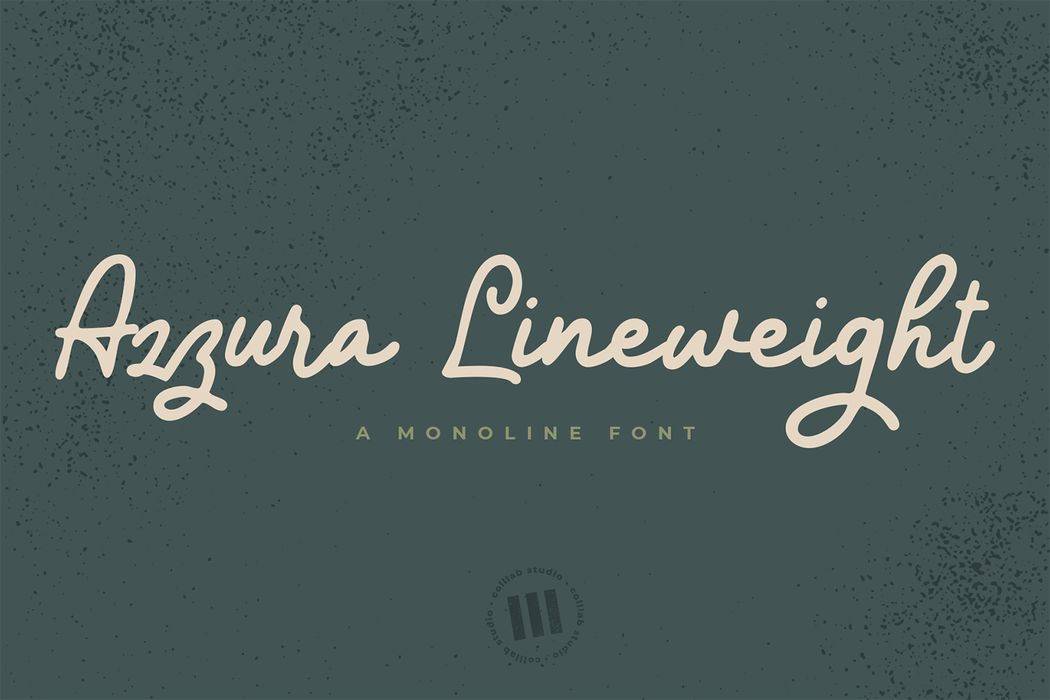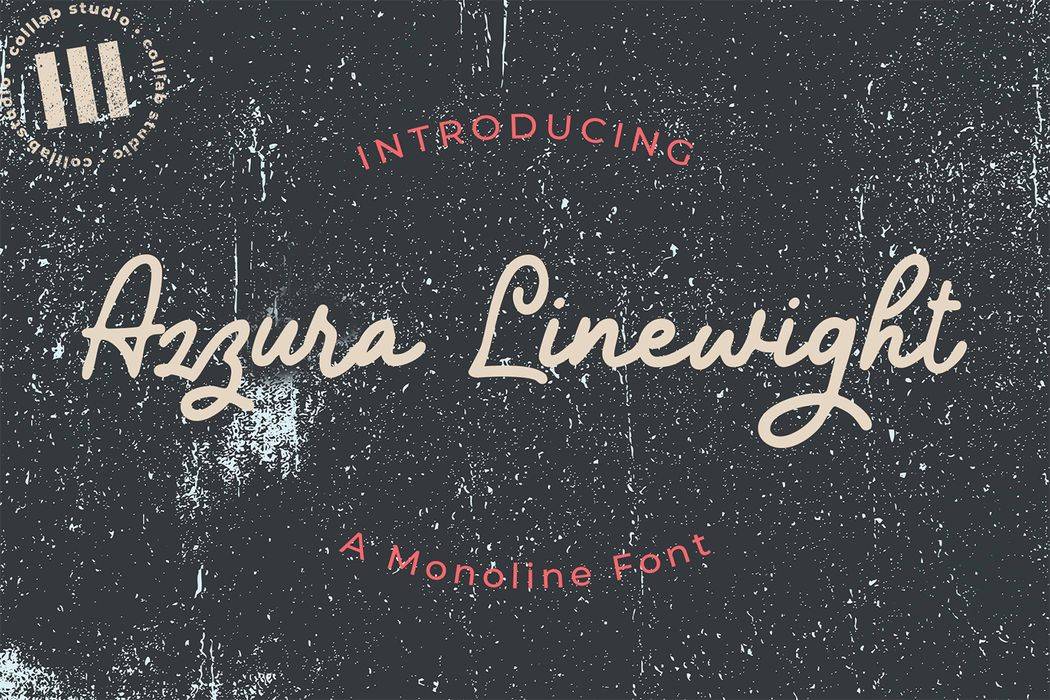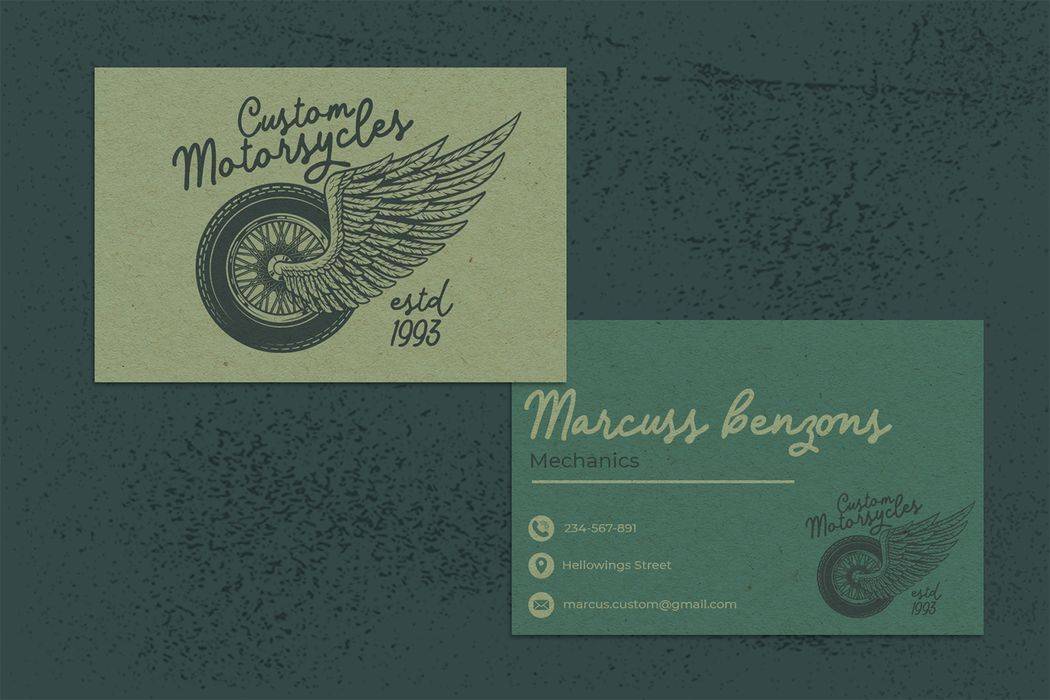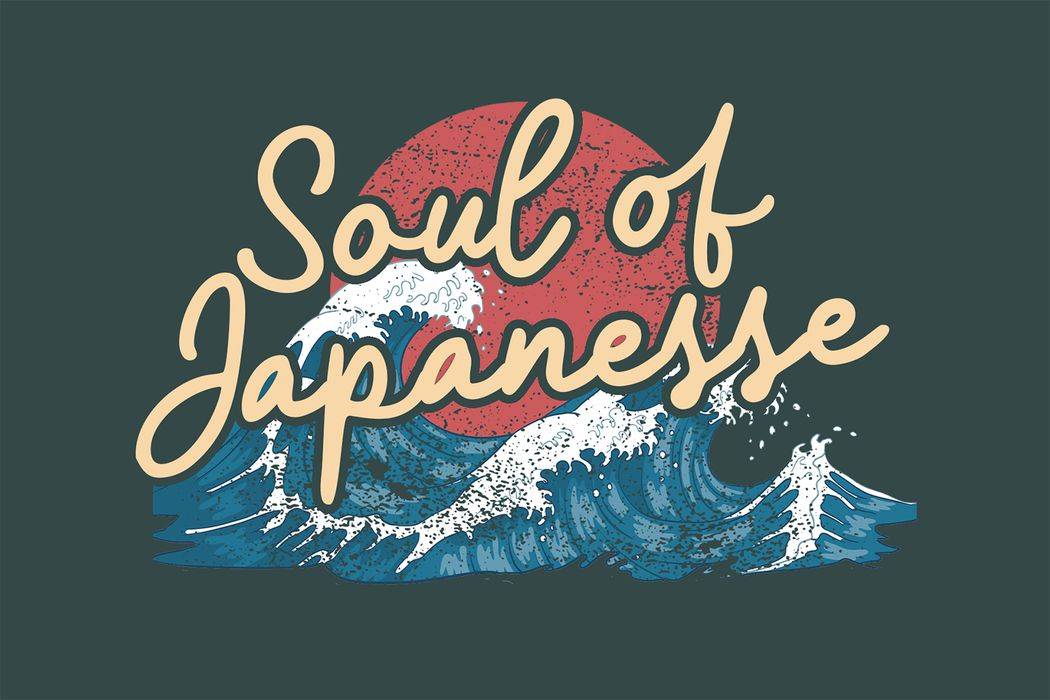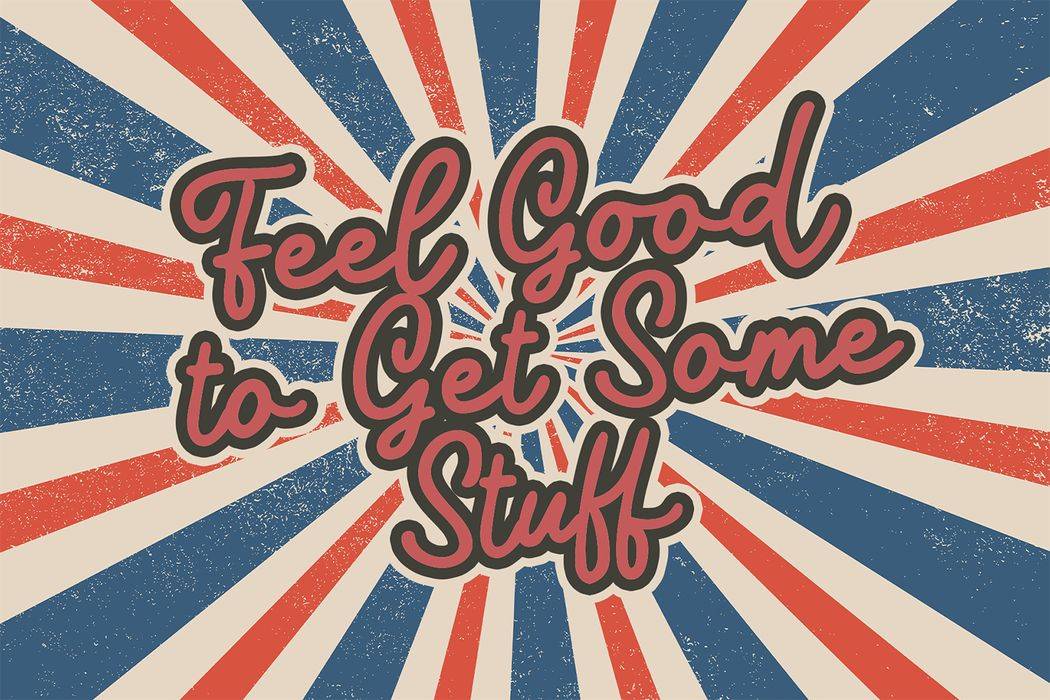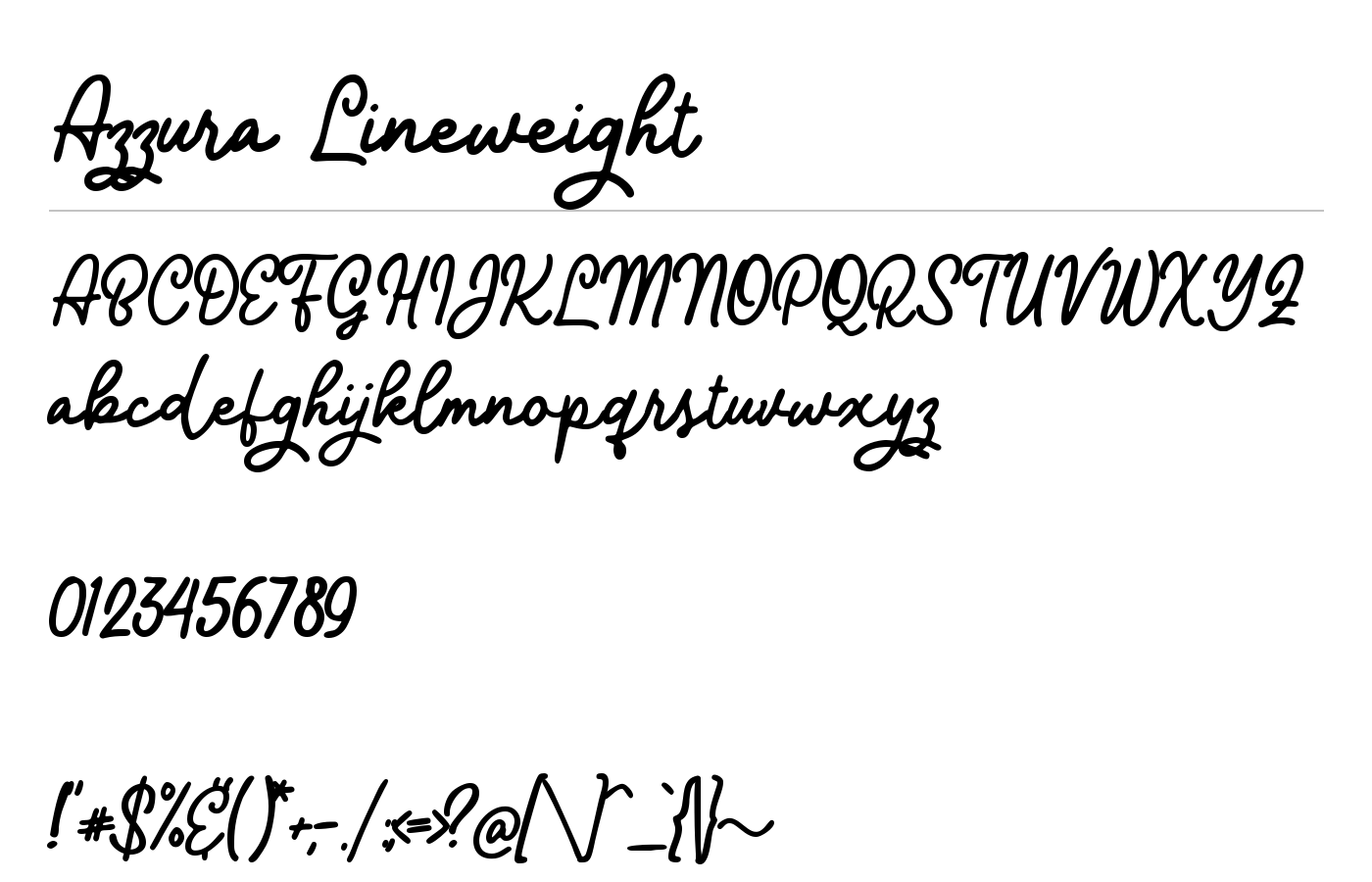
Azzura Lineweight is a graceful script font featuring smooth, flowing strokes with a consistent light weight that evokes a hand-lettered feel. Its elegant yet casual style, with distinctive loops and rounded letterforms, makes it ideal for branding, invitations, and creative projects that seek a personal and sophisticated touch. This font works beautifully in display uses where a refined, approachable personality is desired.
Azzura Lineweight Font
About Azzura Lineweight Font
| Font family | Azzura Lineweight Font |
| Designer | Colllab Studio |